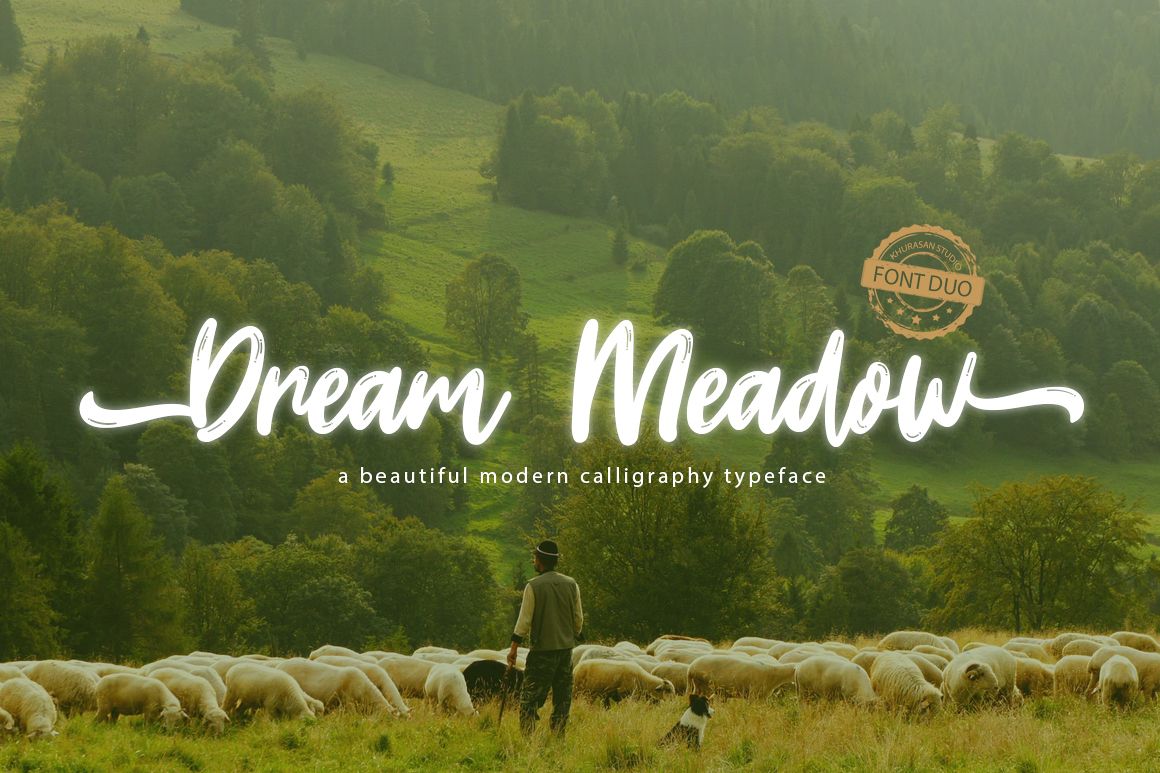
The Dream Meadow Font is a fun script font, fresh & modern style. Dream Meadow Script has two different style, regular & clean. You can combine regular and clean to get amazing results. Dream Meadow Script Font suitable for logo, branding, greeting card, poster and any design that you create.